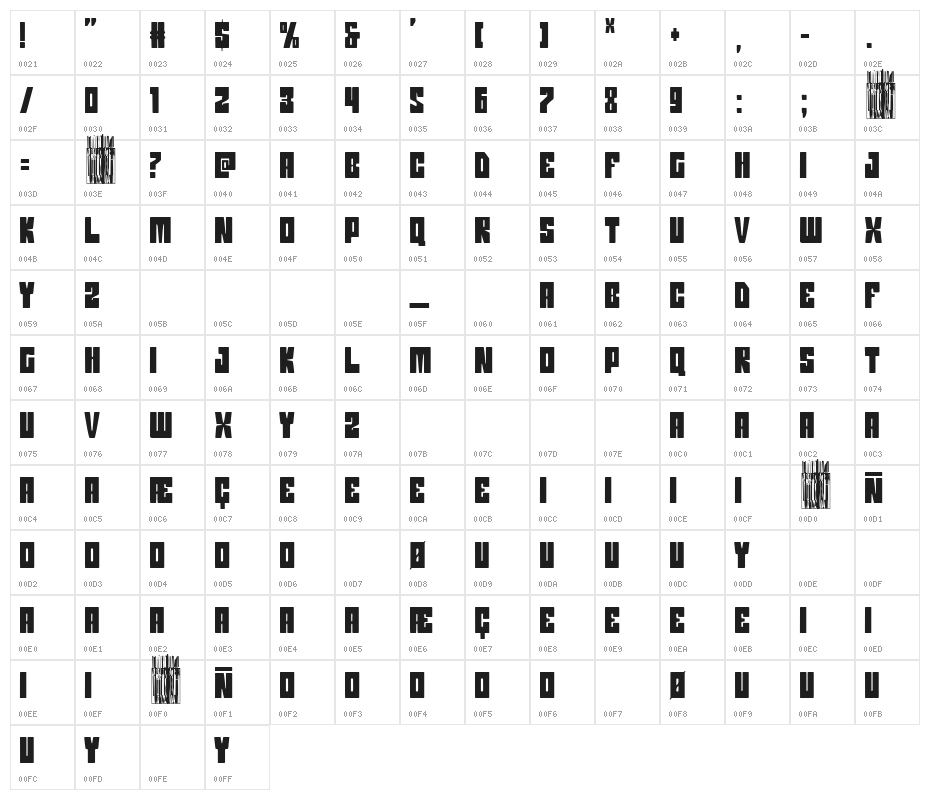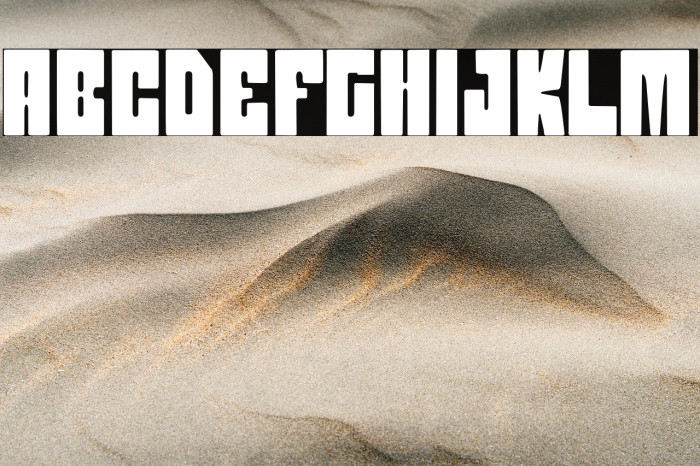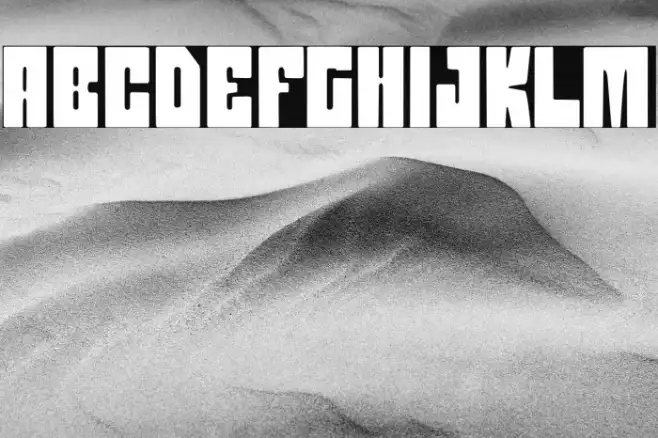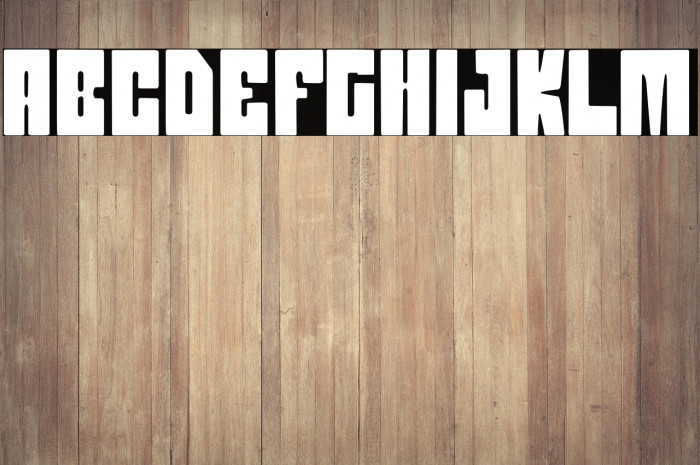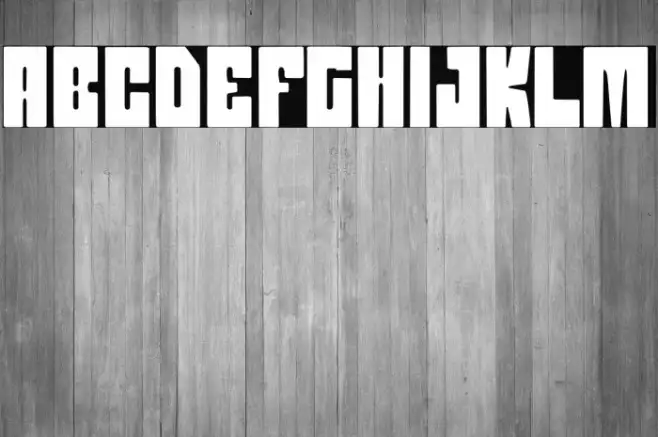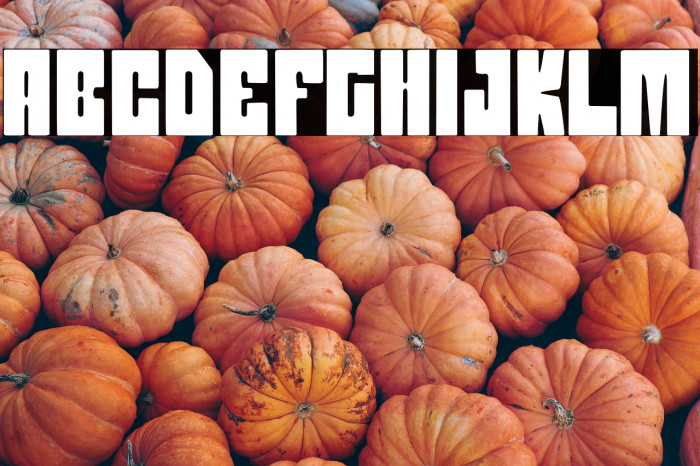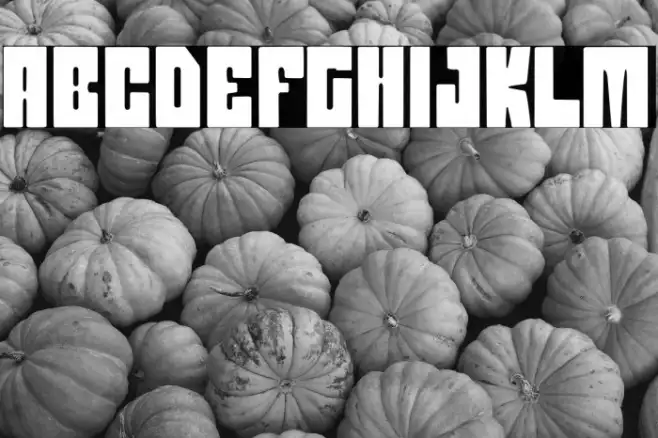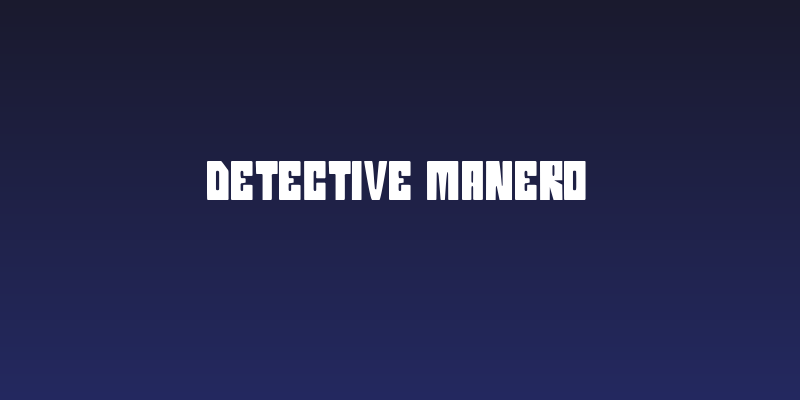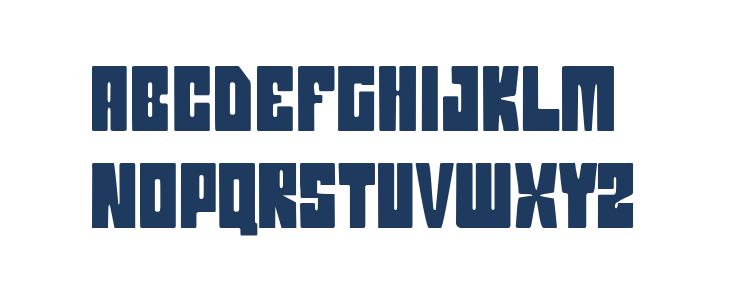
Detective Manero Font
Detective Manero Description
This font features a bold and striking design with a strong geometric influence. The characters are blocky and robust, giving off a powerful and commanding presence. The uppercase letters are particularly prominent, with sharp angles and a uniform thickness that conveys a sense of stability and strength. The numbers and special characters follow the same bold style, ensuring consistency across all text elements. This font is ideal for making a statement, with its high impact and attention-grabbing appearance. The overall design is modern yet has a retro feel, reminiscent of classic arcade or video game typography.
| Overall Style | Modern, Retro |
| Proposed Projects | Ideal for video game titles, posters, logos, and branding that require a bold statement. |